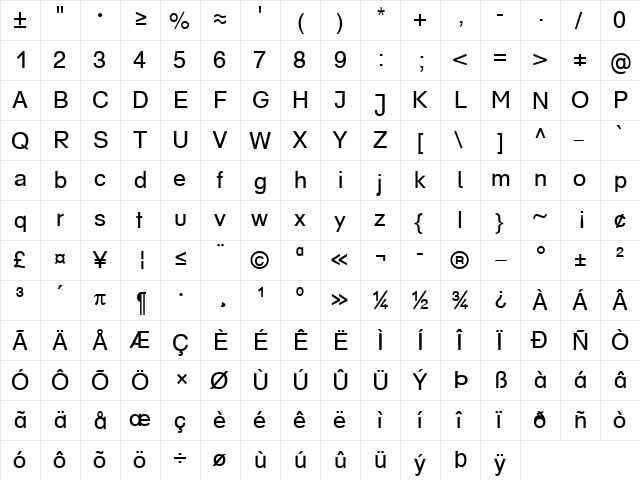
MathStandard Becker Normal
Design Context for MathStandard Becker Typeface
MathStandard Becker offers clean, dependable letterforms without strong stylistic allegiance, making it a practical choice for designers who need flexibility.
Pro Tip: Use MathStandard Becker in both headline and body roles to test its range before committing to a single application.